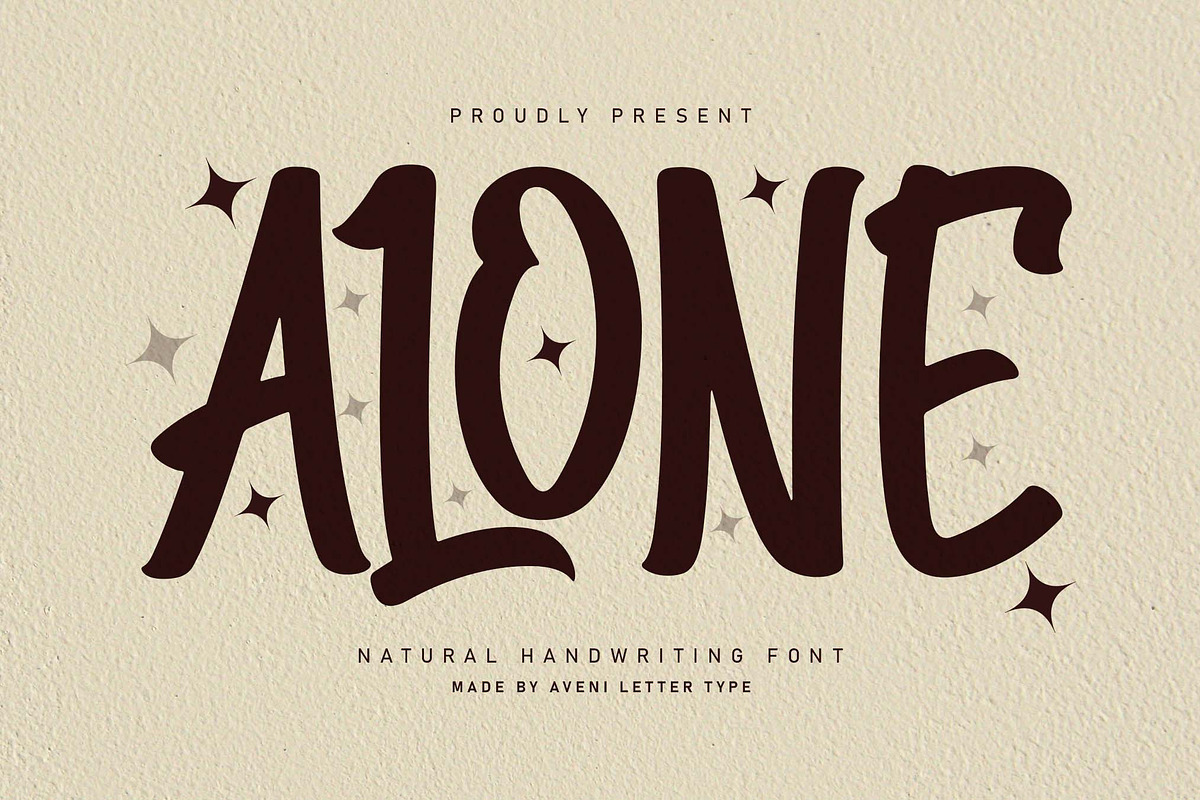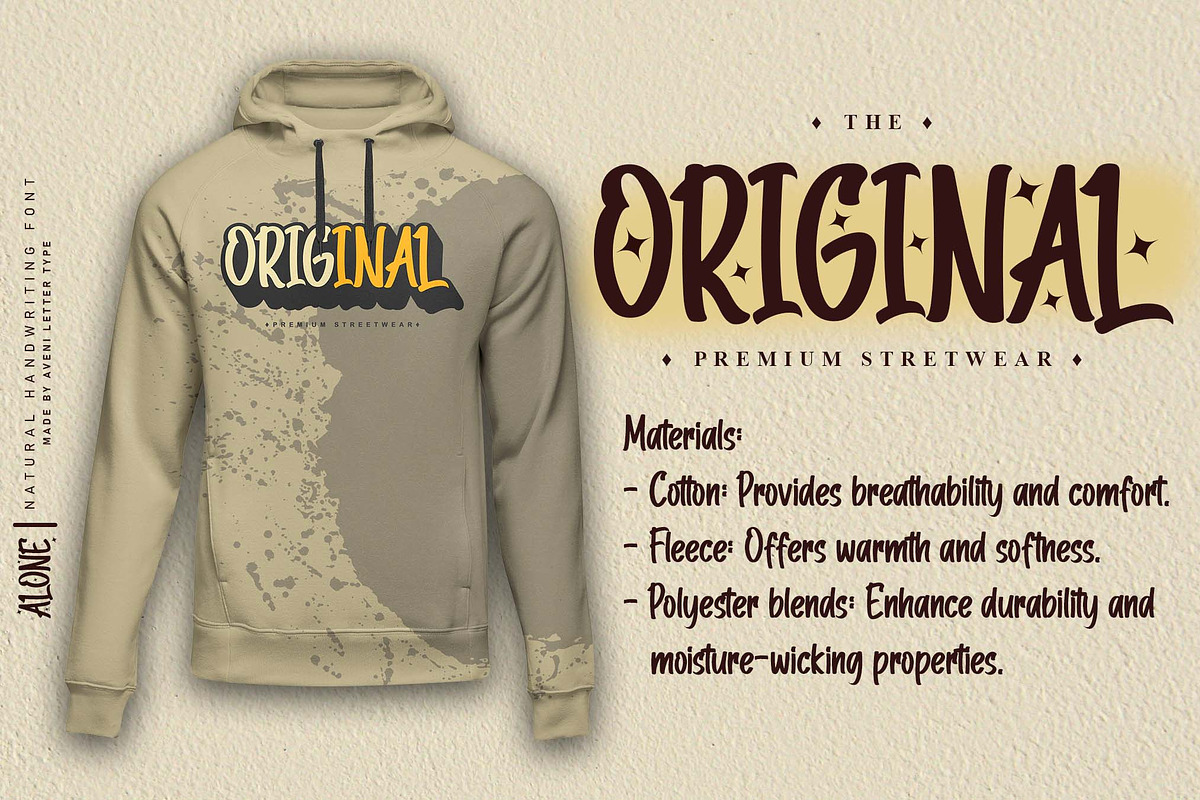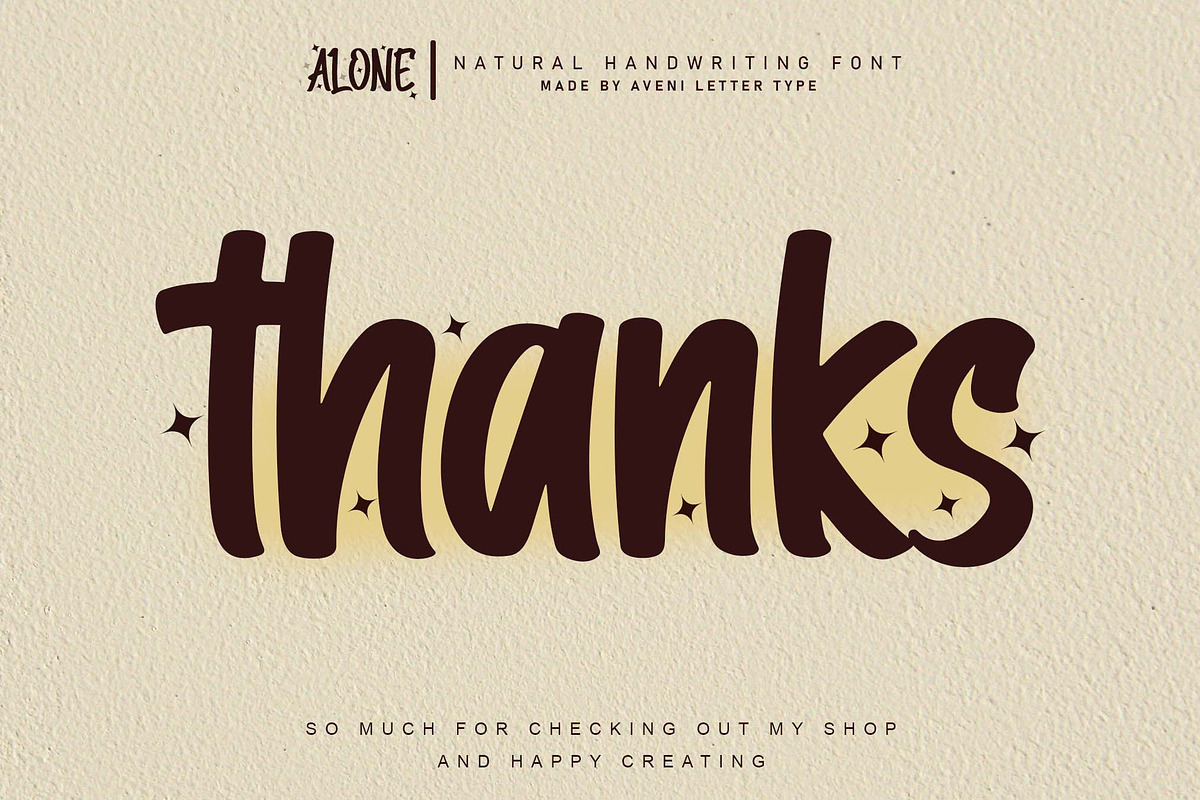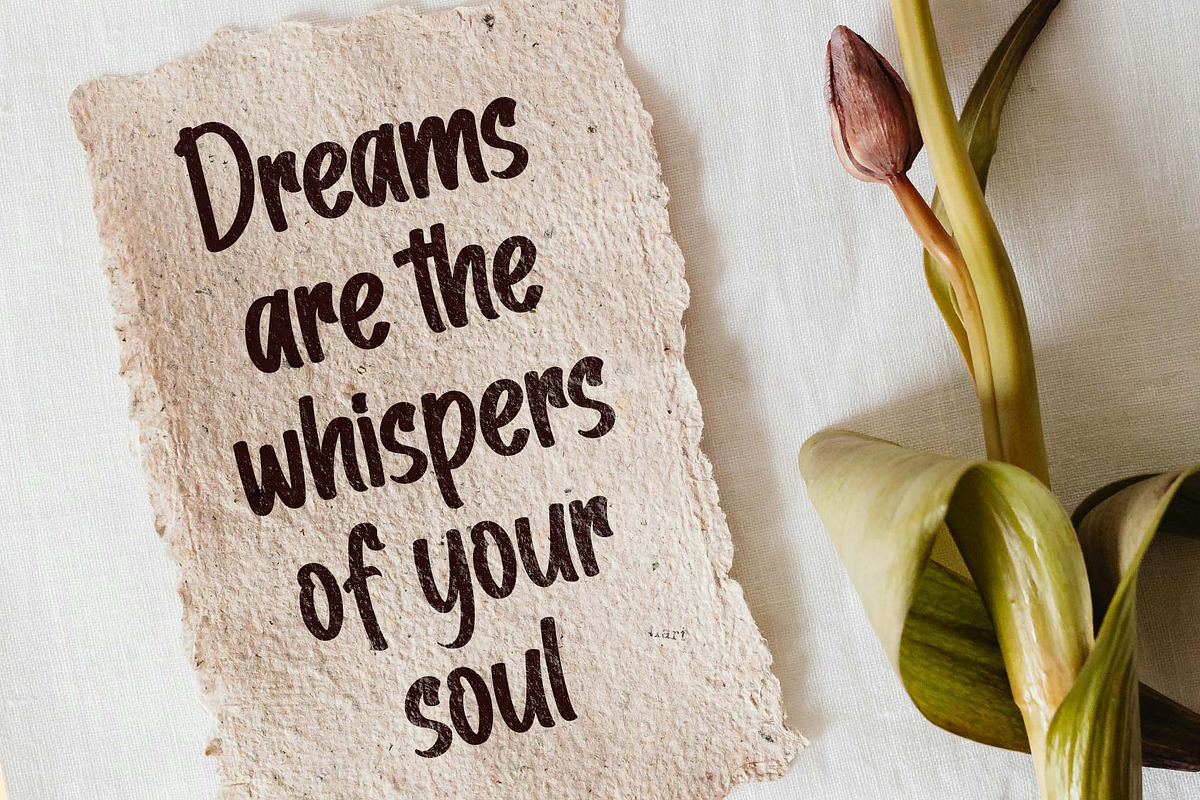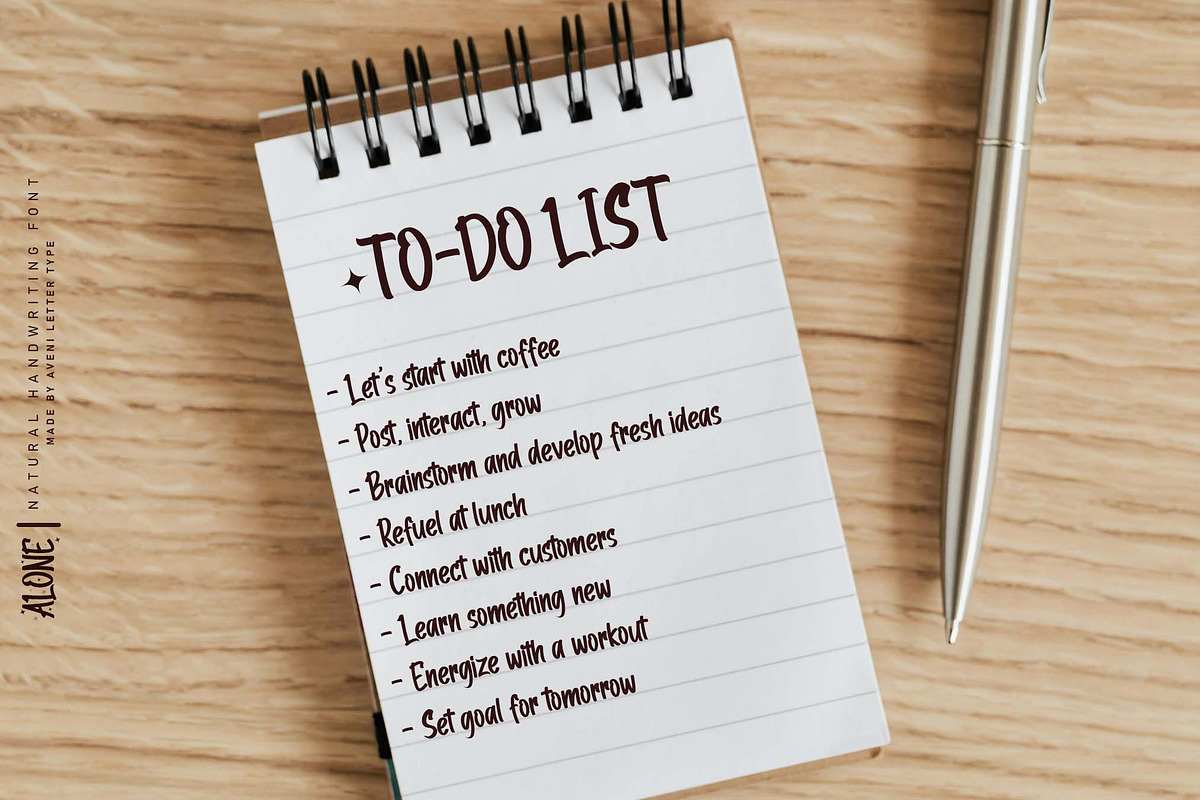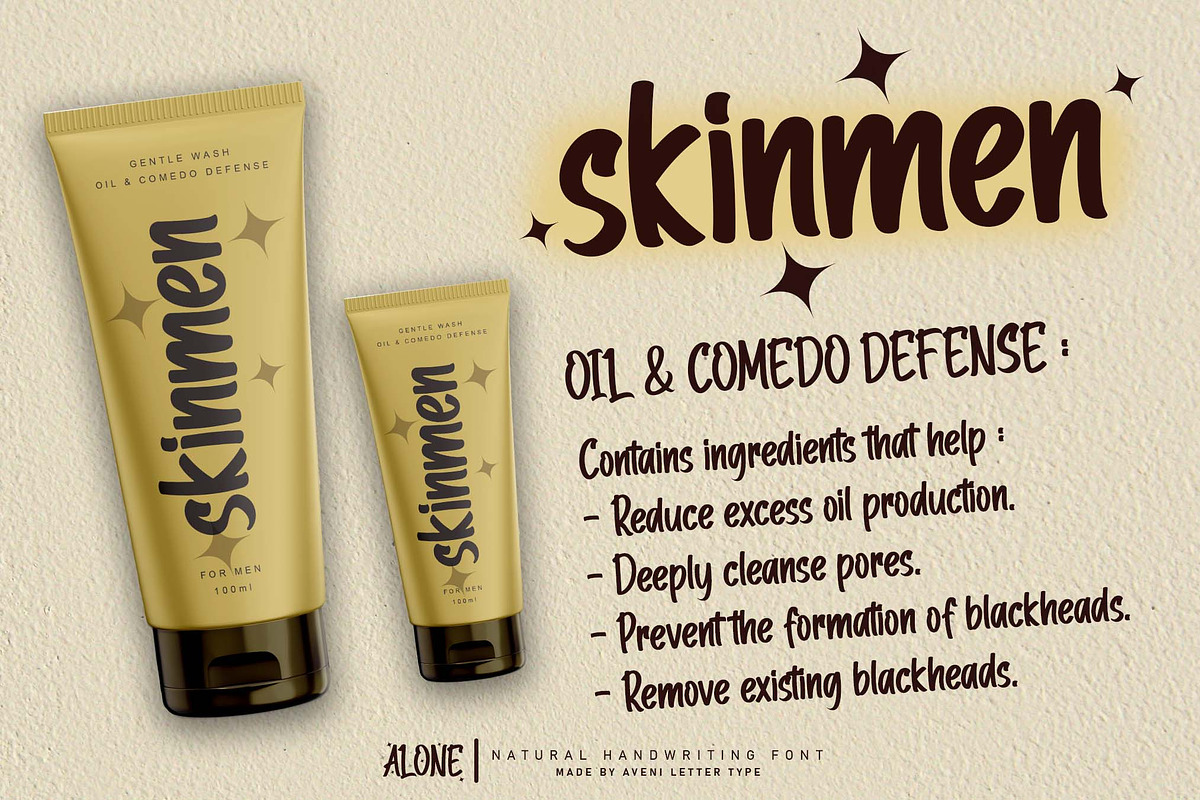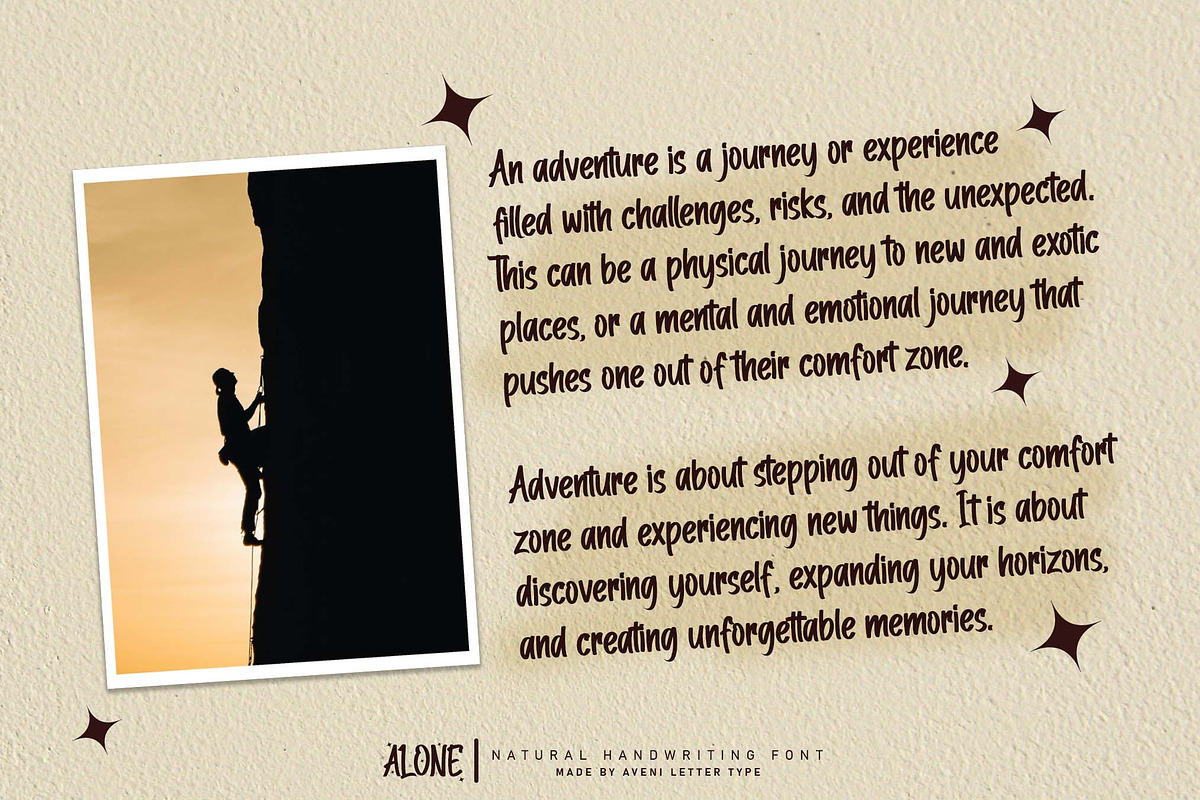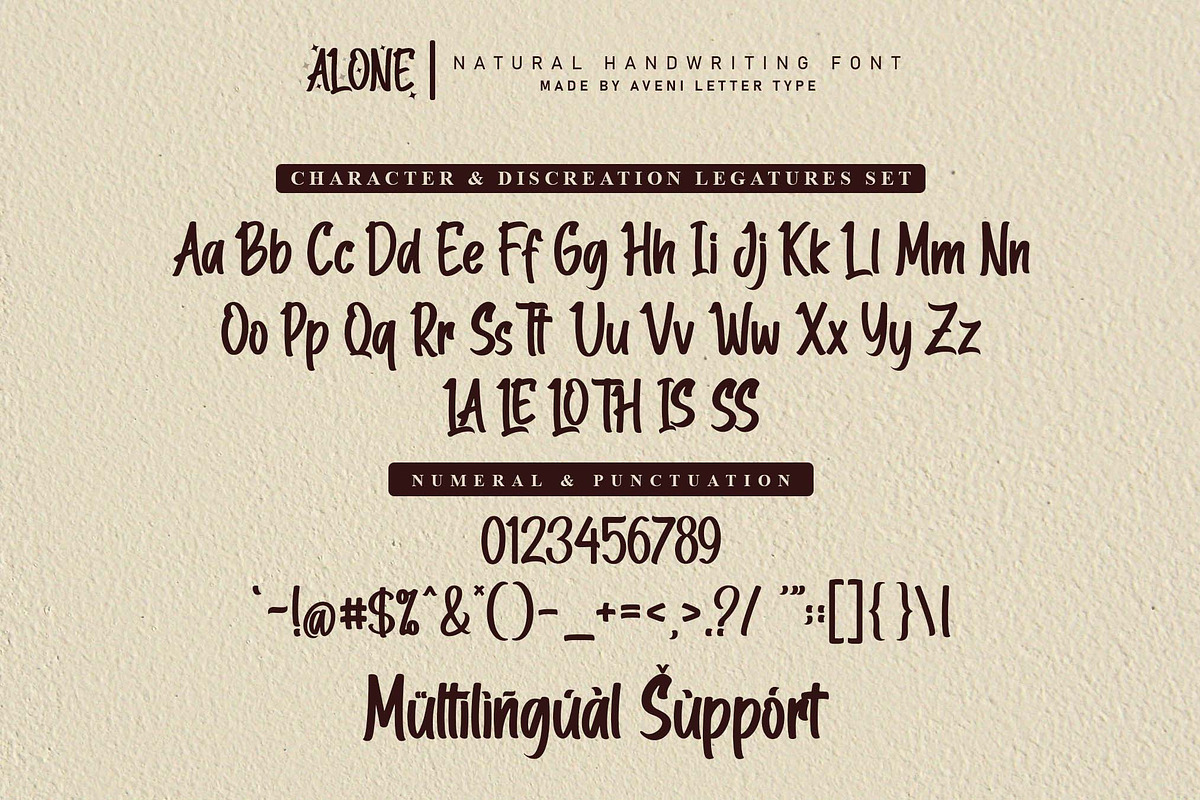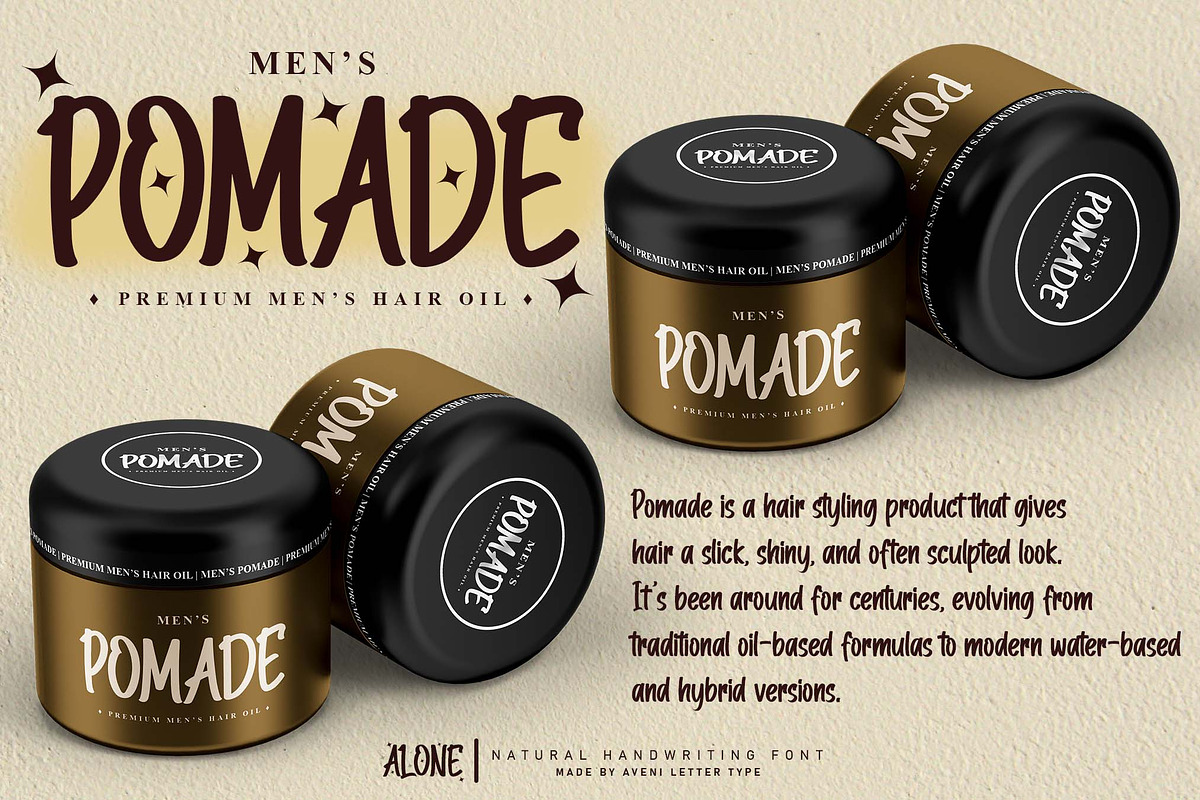
Alone | Handwritten
Hello Ladies & Gentlemen, Introducing the Alone Font which was born as natural handwriting with a casual style. Of course, this font has been kerned very neatly, so it can make it easier for you to use this font.
Of course, this Alone Font is very Instagrammable and has many features, so it is very suitable for use in many projects that you are working on, such as for company branding, logotypes, product branding, wedding invitations, business cards, your business nameplate, letterhead, and many more of course.
Font Feature :
- Discretion Ligature and Multilingual